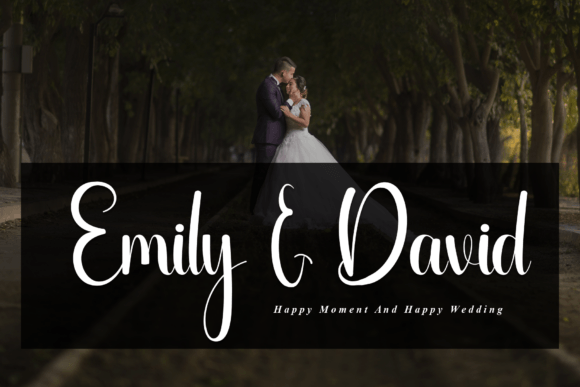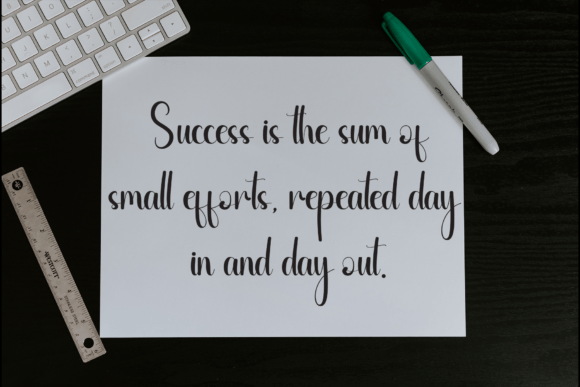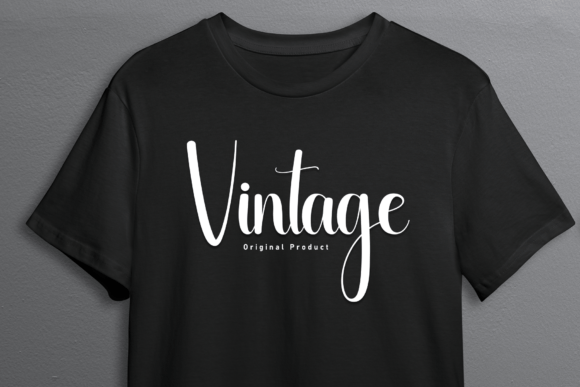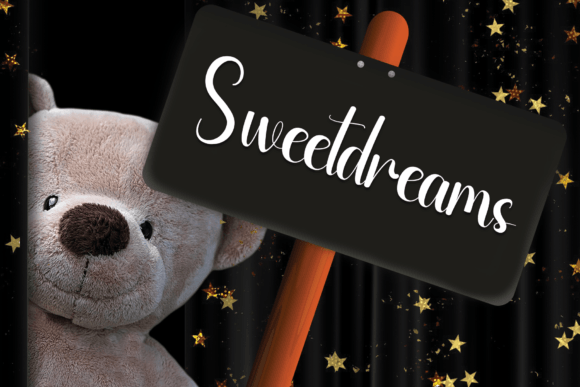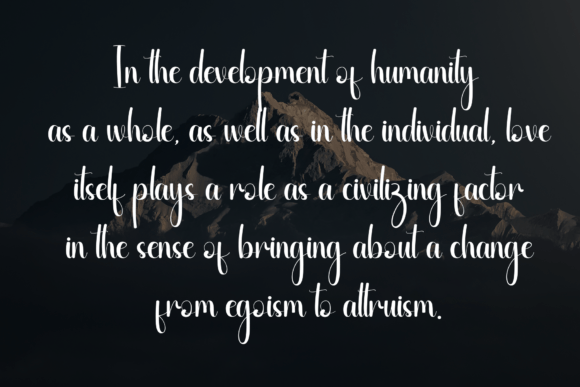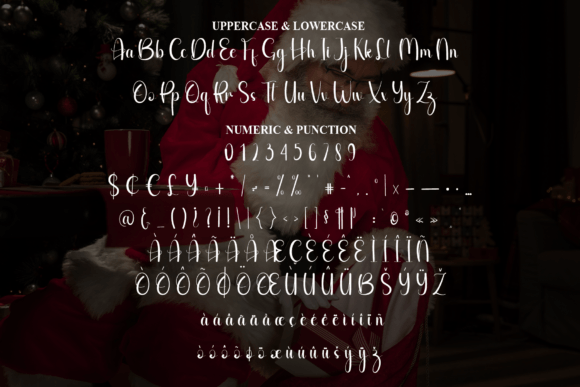
Introduction to Nightsanta Font
As designers, we’ve all been there – staring at a blank page, searching for the perfect font to breathe life into our creative project. The moment we find that one special font that captures the essence of our design is pure magic. For me, that moment came when I discovered the Nightsanta Font – a charming handwritten display font that exudes sweetness and friendliness.
What I love about the Nightsanta Font is its ability to add a dash of fun and whimsy to any design. Whether it’s a wedding invitation, greeting card, or any other project that requires a playful touch, this font is sure to deliver. Its unique blend of cuteness and fun makes it a valuable resource for designers looking to elevate their designs to the next level.
- Features a distinctive, hand-drawn style that adds a touch of personality to any design
Honest Review: Nightsanta Font
I recently had the chance to work with the Nightsanta Font, and I must say it’s been a game-changer for my creative project. The high quality of the font is immediately apparent, with crisp lines and a clear, readable design. The Nightsanta Font is a free download, which is a major plus for designers on a budget.
One of the standout features of the Nightsanta Font is its transparent background, making it easy to incorporate into any design without worrying about clashing colors. This has been a huge help in creating a cohesive look for my project. I also appreciate the flexibility of the font, which can be used for a wide range of design applications.
Overall, I’m really impressed with the Nightsanta Font. It’s a valuable design resource that has helped take my creative project to the next level. While it’s not perfect, its strengths far outweigh its limitations. If you’re looking for a high-quality, free font to add some magic to your designs, I highly recommend giving Nightsanta a try. ✨